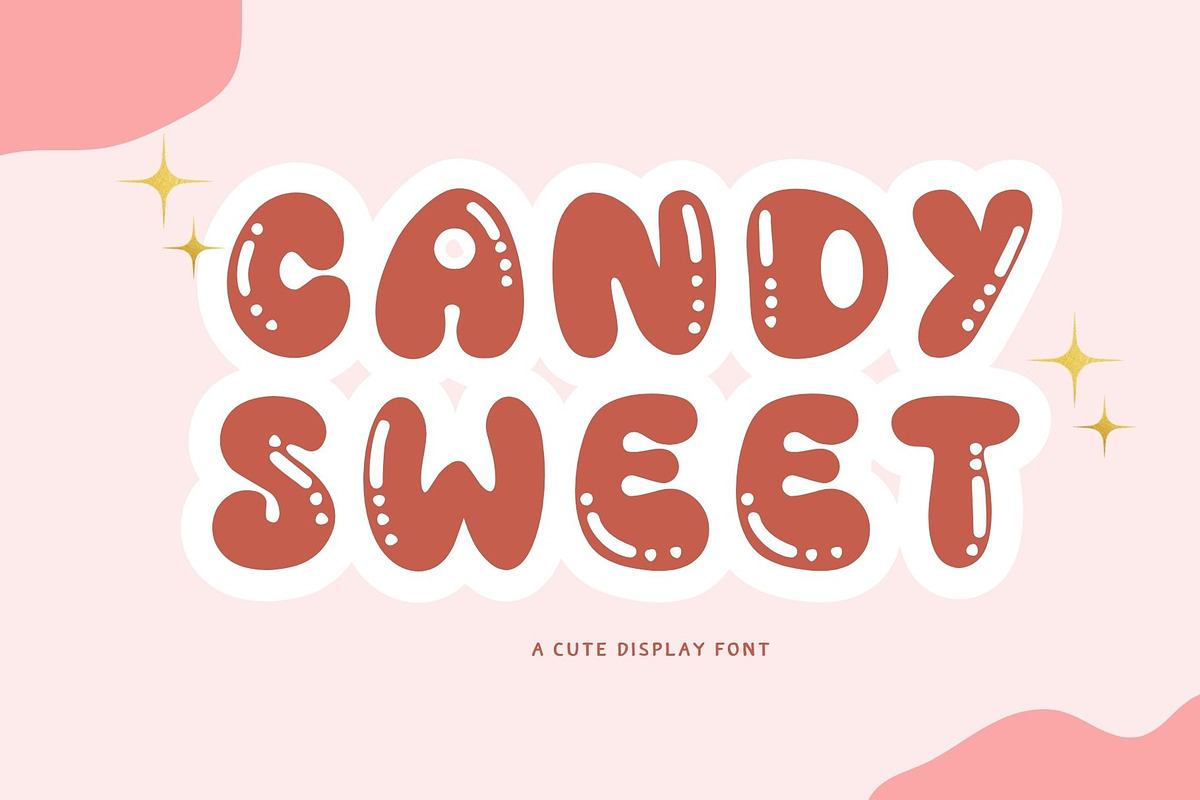
Bring a dose of fun and cuteness to your designs with Candy Sweet Font Free Download. This playful and bubbly typeface is perfect for projects that need a lighthearted, cheerful touch—think birthday invitations, kids' merchandise, dessert branding, and colorful social media graphics.
Candy Sweet features rounded, soft letterforms that evoke a sense of joy and innocence, making it ideal for both print and digital design. With support for uppercase, lowercase, numbers, and punctuation, it’s a versatile choice for experimenting with typography in creative mockups.